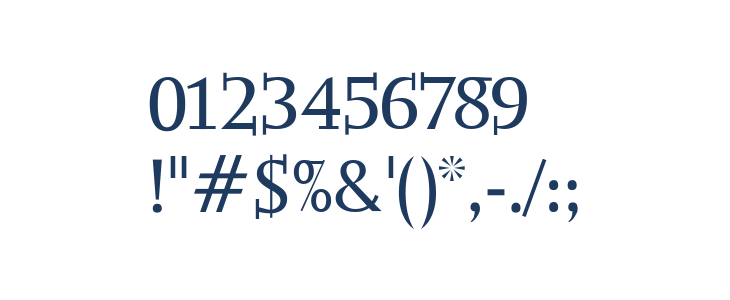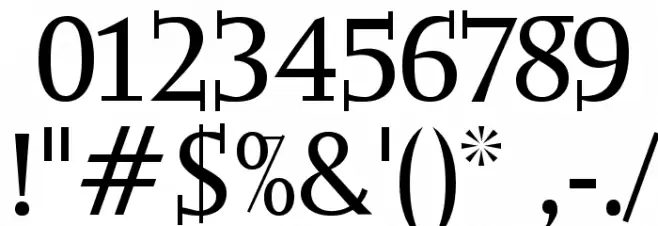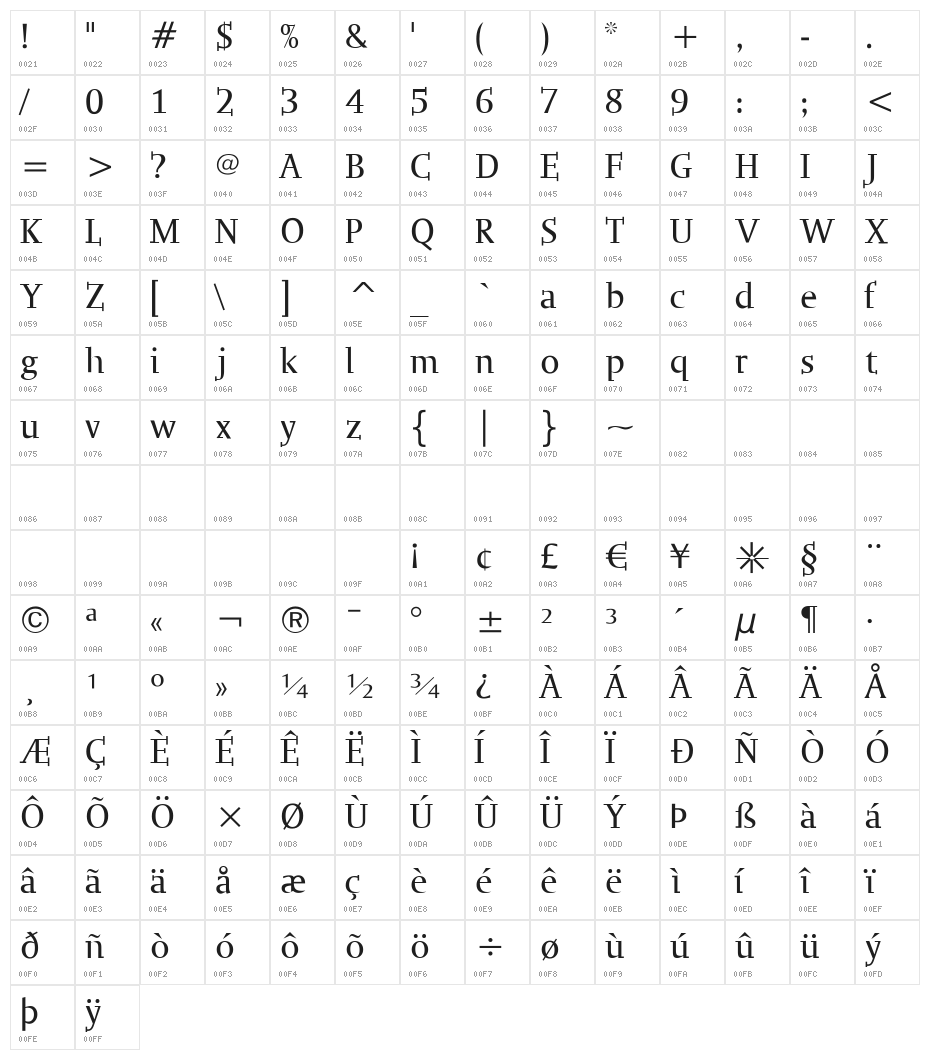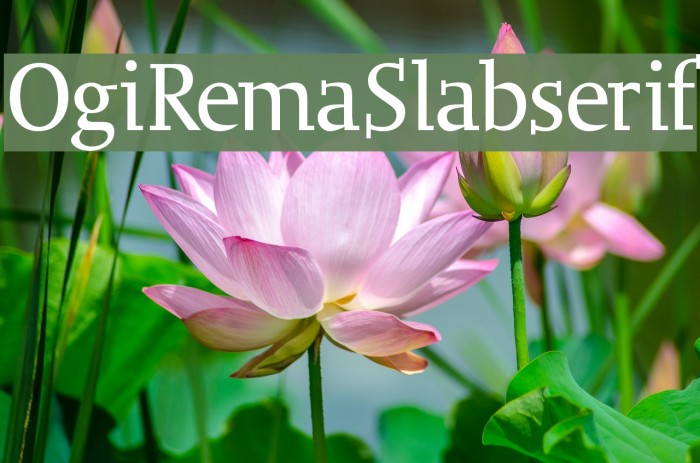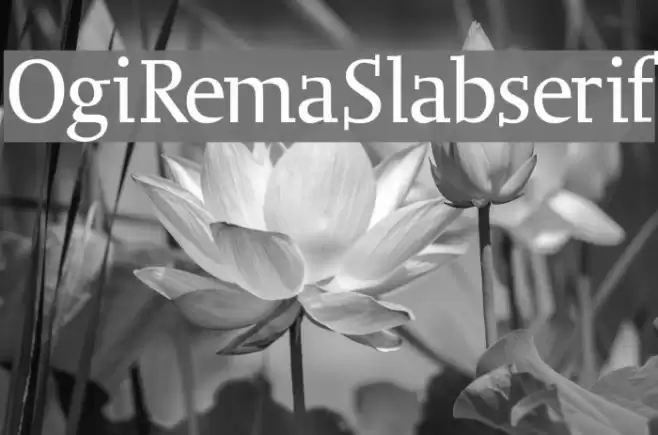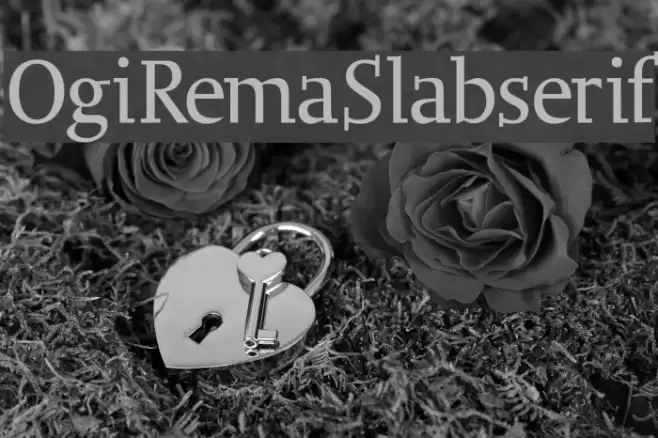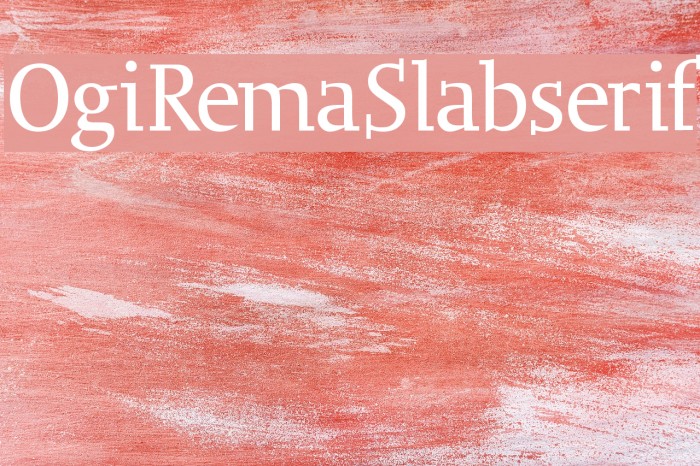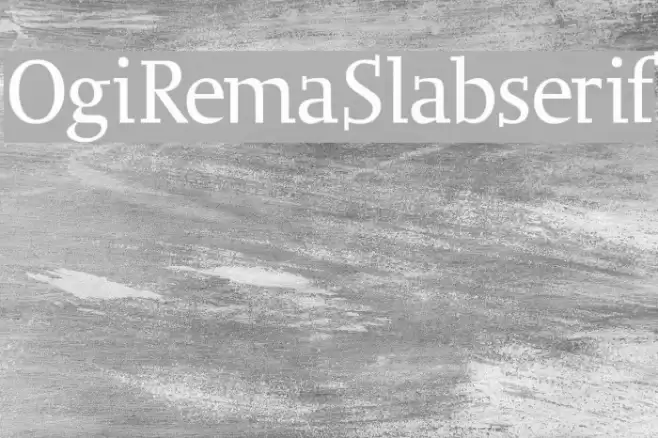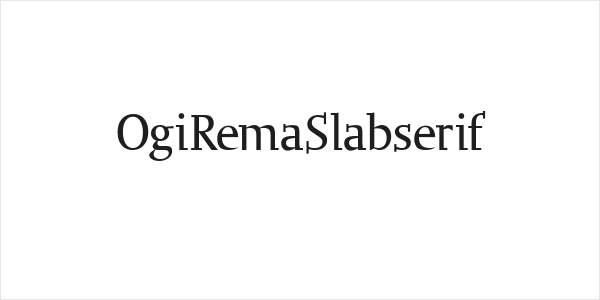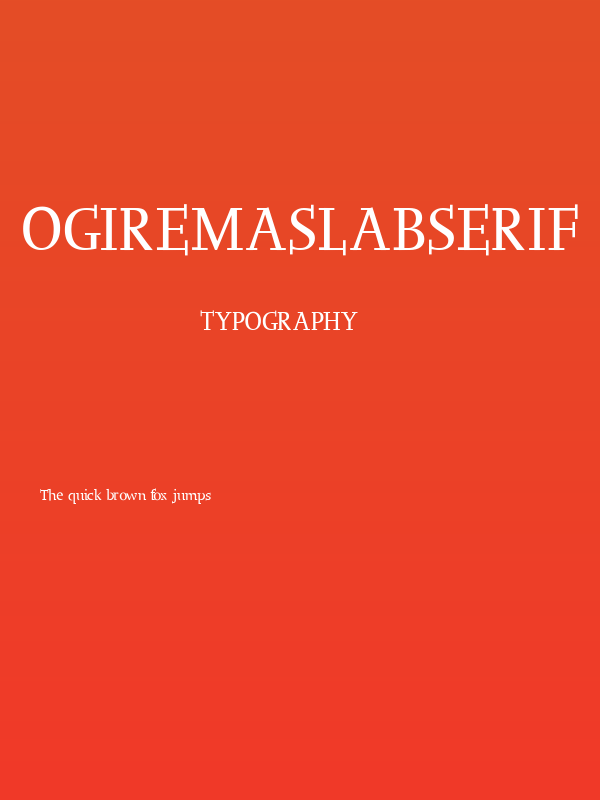
OgiRemaSlabserif Font
OgiRemaSlabserif Description
This font exhibits a strong and structured appearance, characterized by its slab serif design. The serifs are prominent and block-like, providing a sense of stability and boldness. The uppercase letters are tall and commanding, while the lowercase letters maintain a consistent height, contributing to a harmonious and balanced look. The numerals are clear and easily distinguishable, making them suitable for various applications. Special characters are well-defined, ensuring readability and versatility. The overall design is modern yet retains a classic touch, making it adaptable for both contemporary and traditional projects.
| Use Case | Headlines, Logos, Editorial Design |
| Proposed Projects | Ideal for editorial design, branding, signage, and advertising materials where a strong and reliable typeface is needed. |